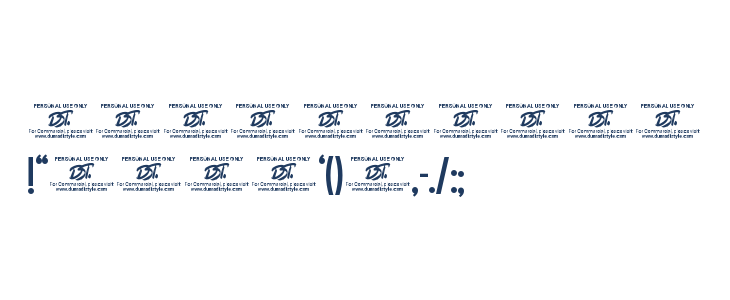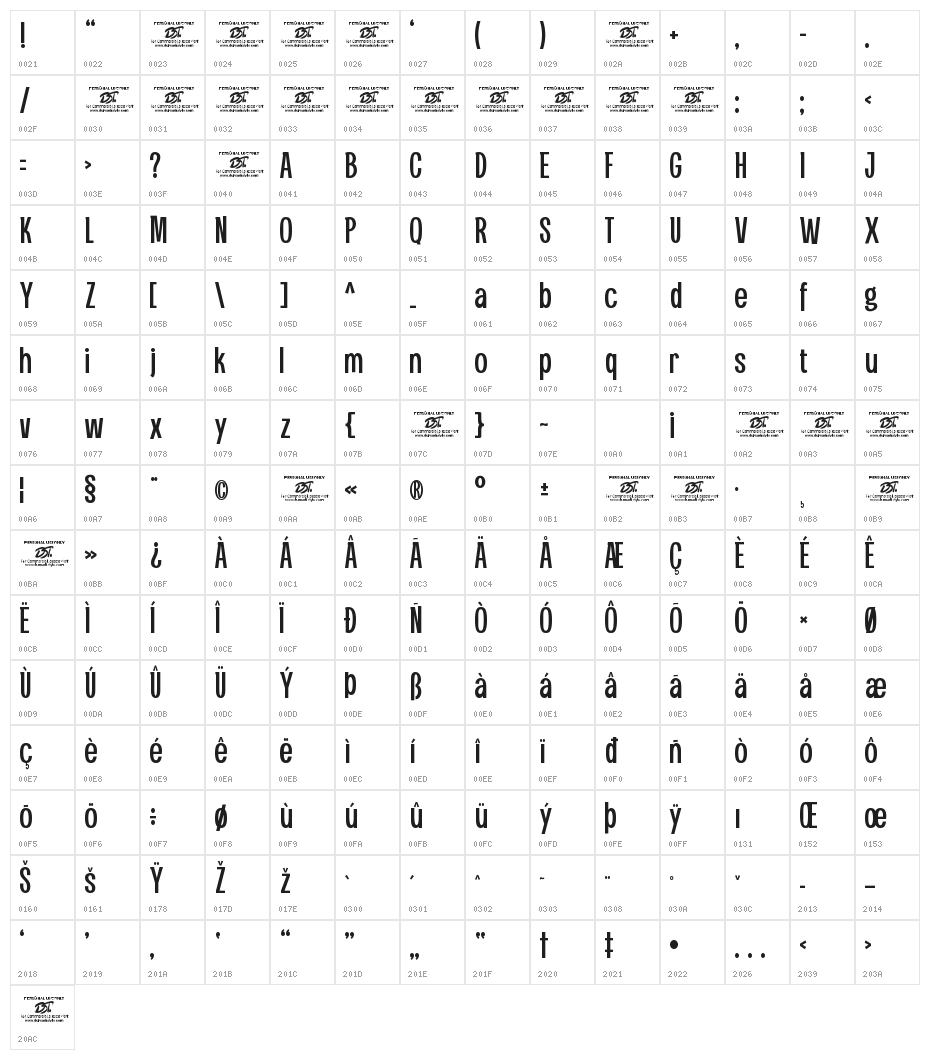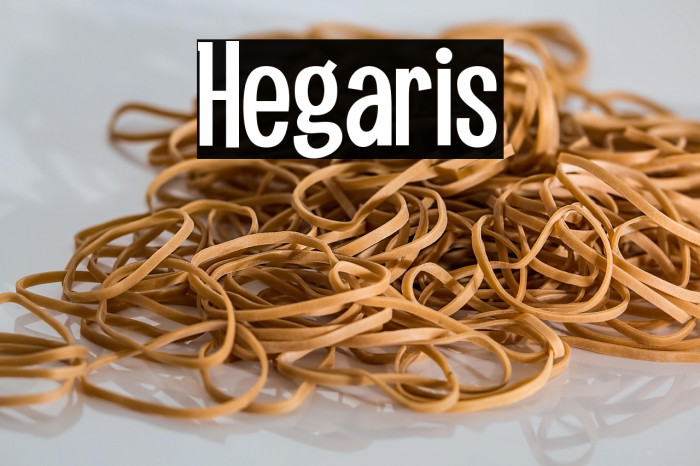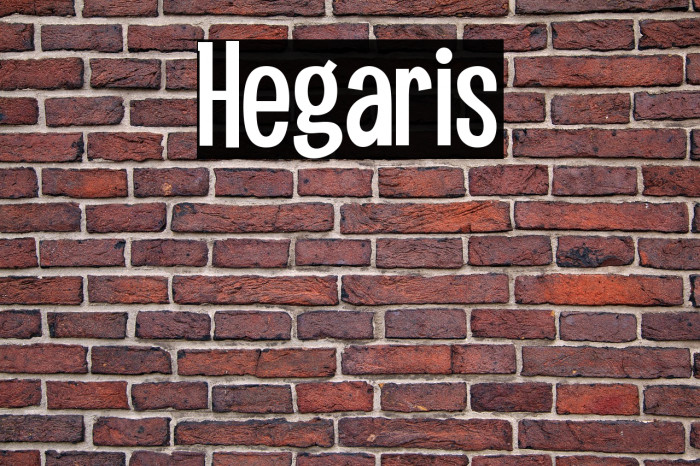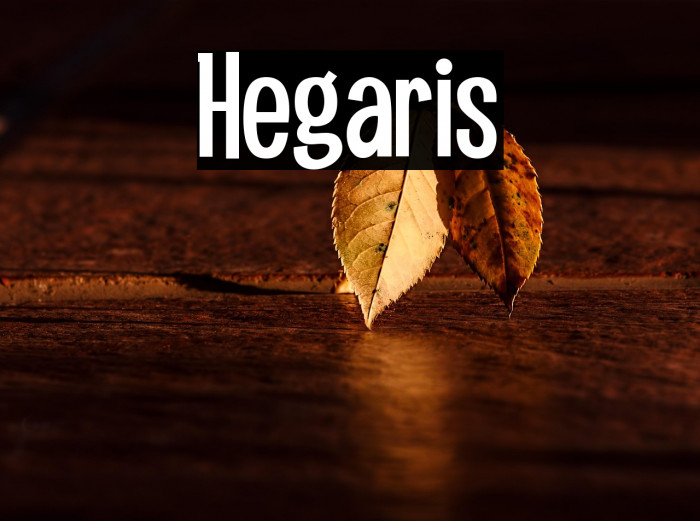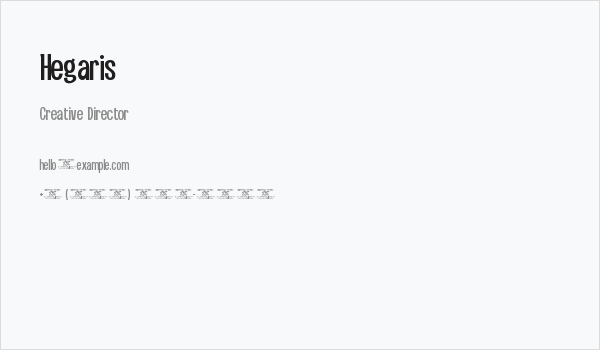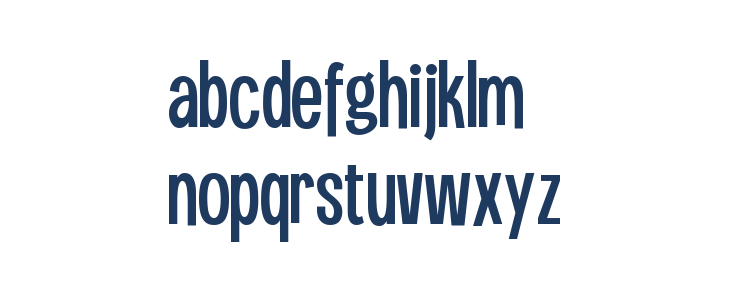
Hegaris Font
Hegaris Description
This font features a bold and impactful design with tall, narrow characters that convey a sense of modernity and strength. The uppercase letters are particularly striking, with a consistent height and width that create a uniform appearance. The lowercase letters maintain the same boldness, ensuring readability and visual appeal. The numbers and special characters are designed to match the overall style, making them suitable for a variety of applications. The font's clean lines and lack of serifs contribute to its contemporary look, making it ideal for headlines and attention-grabbing text.
| Proposed Projects | Ideal for branding, advertising, posters, and any project requiring a strong visual impact. |